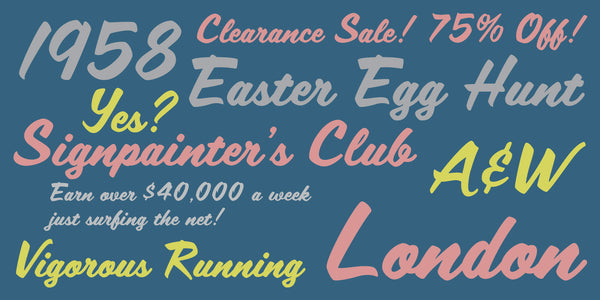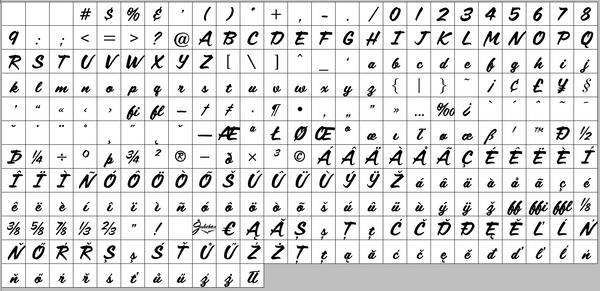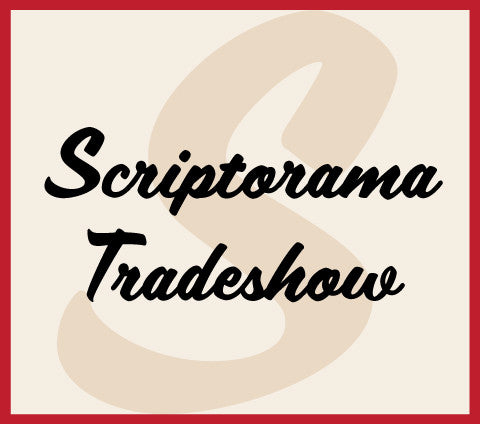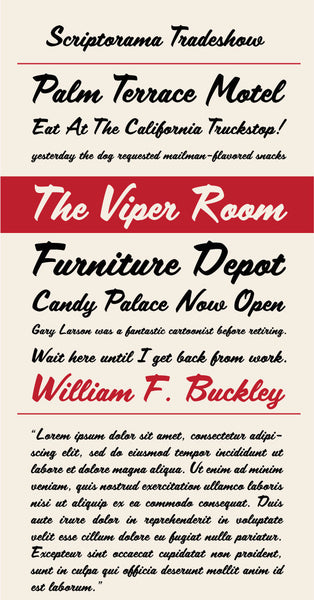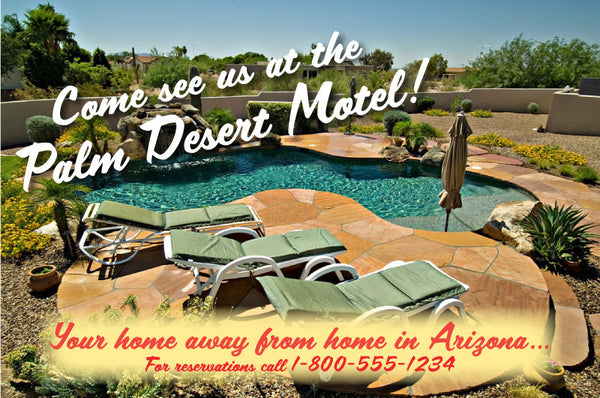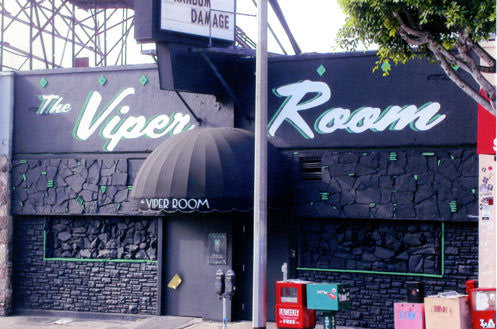
Scriptorama Tradeshow
Scriptorama Tradeshow is one of three fonts in the Scriptorama set designed to celebrate the hand painted sign lettering of the 1950s and 1960s. Scriptorama Tradeshow is a flowing script font that lends a warm and engaging look to any design. A perfect font for everything from signage to film titles.
Notable Uses: Scriptorama Tradeshow was used in Craig Ferguson's title logo for the Late Late Show. It was also used from 2004 to 2009 for the sign on the famous The Viper Room club in Hollywood.